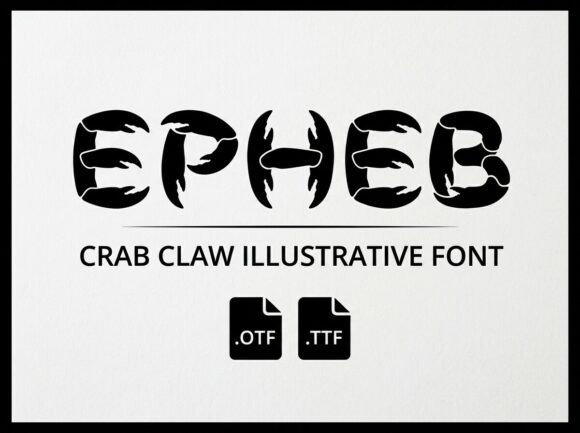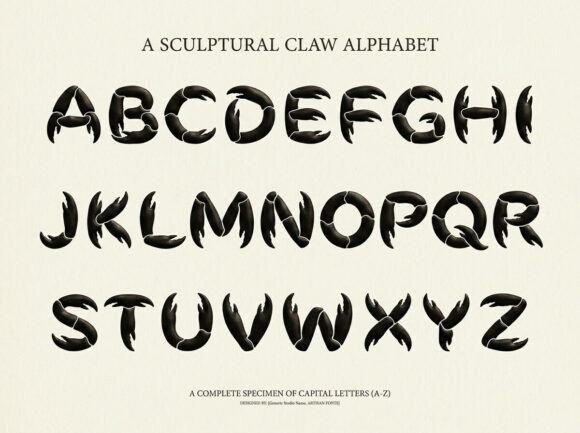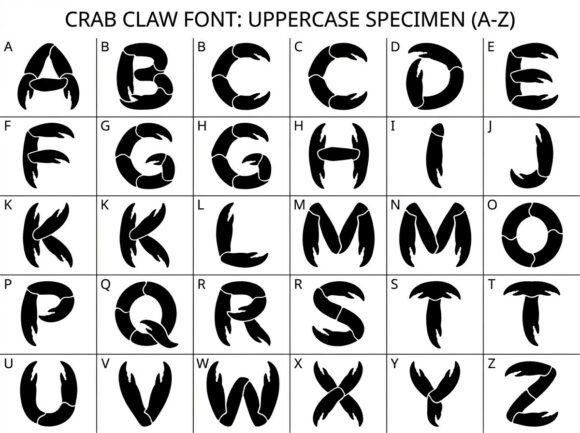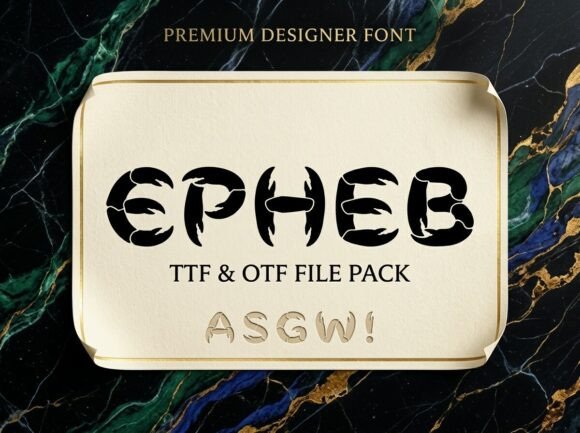
Bring the Raw Power of the Ocean to Your Typography with Epheb Font
Are you looking for a unique and captivating font to add a touch of the ocean to your design projects? Look no further than Epheb, an illustrative font that harnesses the raw power of the sea to create a truly unforgettable typographic experience. In this article, we’ll dive into the world of Epheb and explore its features, applications, and benefits for designers and crafters.
The Inspiration Behind Epheb
Epheb is a bold display typeface that draws inspiration from the silhouettes of crab claws. Every letter in the font is meticulously constructed from these segmented forms, characterized by sharp pincers and textured joints. The result is a rhythmic and undeniably “coastal” aesthetic that evokes the rugged beauty of the ocean.
Key Features of Epheb Font
So, what makes Epheb stand out from other fonts? Here are some of its key features:
- Heavy, Segmented Forms: Epheb’s letters are constructed from thick, segmented forms that give the font its bold and rugged appearance.
- Sharp Pincers and Textured Joints: The font’s unique features, such as sharp pincers and textured joints, add a level of detail and realism to each letter.
- Handcrafted Artisanal Grace: Despite its bold appearance, Epheb delivers a sense of handcrafted artisanal grace, making it perfect for designs that require a touch of personality.
- Unyielding, Crustacean-Inspired Strength: The font’s crustacean-inspired design gives it a sense of strength and resilience, making it ideal for designs that require a bold statement.
Applications of Epheb Font
Epheb is an incredibly versatile font that can be used in a wide range of design projects, including:
- Seafood Restaurant Branding: Add a touch of the ocean to your restaurant’s branding with Epheb’s bold and eye-catching typography.
- Coastal Boutique Logos: Create a unique and memorable logo for your coastal boutique with Epheb’s distinctive font.
- Marine-Themed Event Posters: Make a splash with your event posters using Epheb’s bold and attention-grabbing typography.
- Unique Nautical Merchandise: Create one-of-a-kind merchandise, such as t-shirts, stickers, and tote bags, with Epheb’s captivating font.
Benefits of Using Epheb Font
So, why choose Epheb for your design projects? Here are some benefits of using this unique font:
- Stand Out from the Crowd: Epheb’s bold and eye-catching design ensures that your typography will stand out from the crowd.
- Add a Touch of Personality: The font’s handcrafted artisanal grace and crustacean-inspired strength add a level of personality to your designs.
- Versatility: Epheb can be used in a wide range of design projects, from branding and logos to posters and merchandise.
In conclusion, Epheb is a captivating illustrative font that brings the raw power of the ocean to your typography. With its bold and rugged design, handcrafted artisanal grace, and crustacean-inspired strength, Epheb is the perfect choice for designers and crafters looking to add a touch of the sea to their design projects. Whether you’re creating branding for a seafood restaurant, designing a logo for a coastal boutique, or making unique nautical merchandise, Epheb is sure to make a splash.